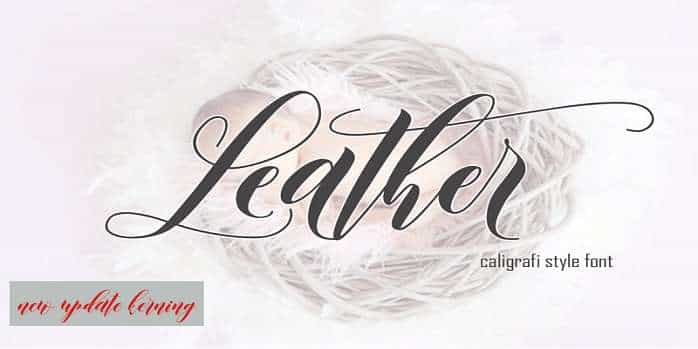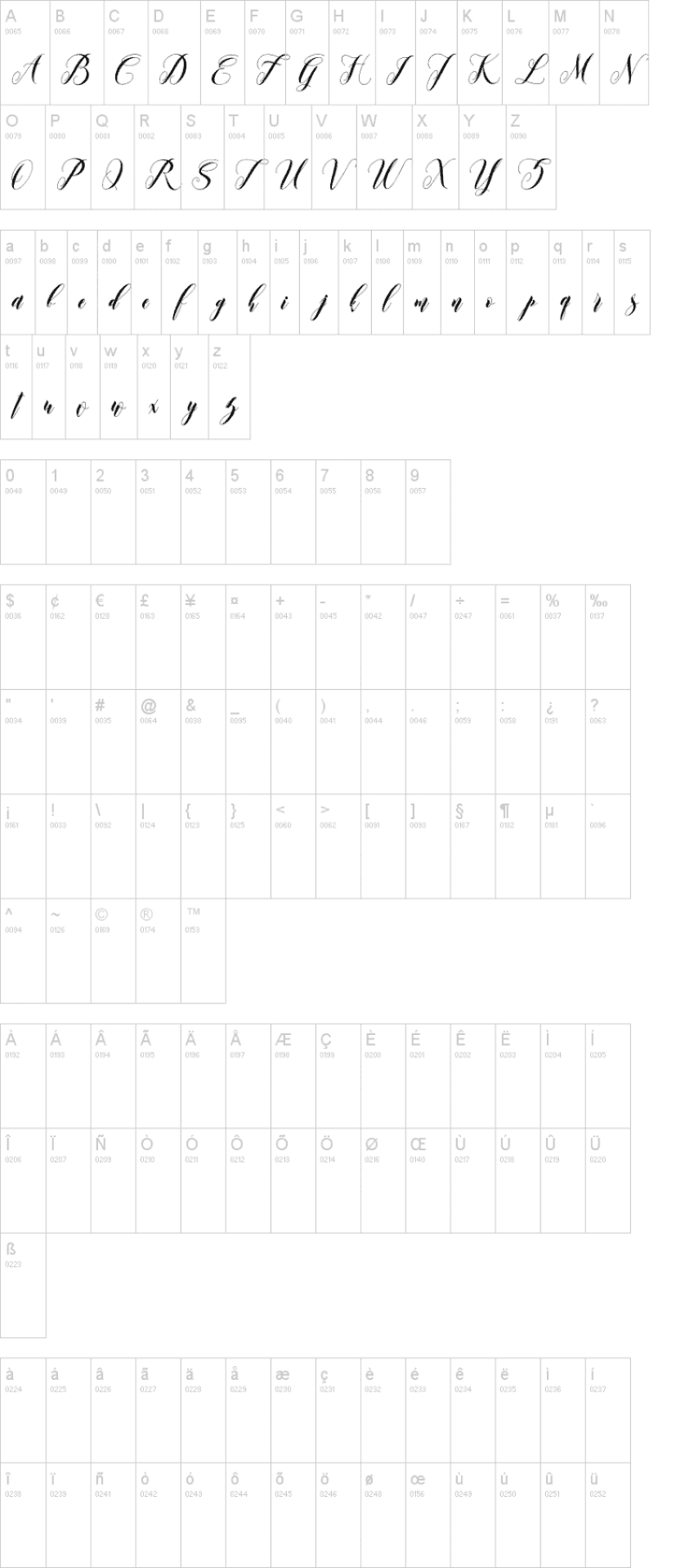
Discover Leather Font, part of the Calligraphy collection—a versatile and unique font perfect for adding a personal touch to your projects. Download it for free and enjoy crafting designs with style, from invitations to social media posts. This font is available exclusively for personal use, giving you the freedom to create without limits. Unlock your creativity with Leather Font today!
Leather font for special of any needed like card, branding, label, wedding, . This is just for demonstration and the contents of this paper have not been written as a final conclusion or a final analysis.